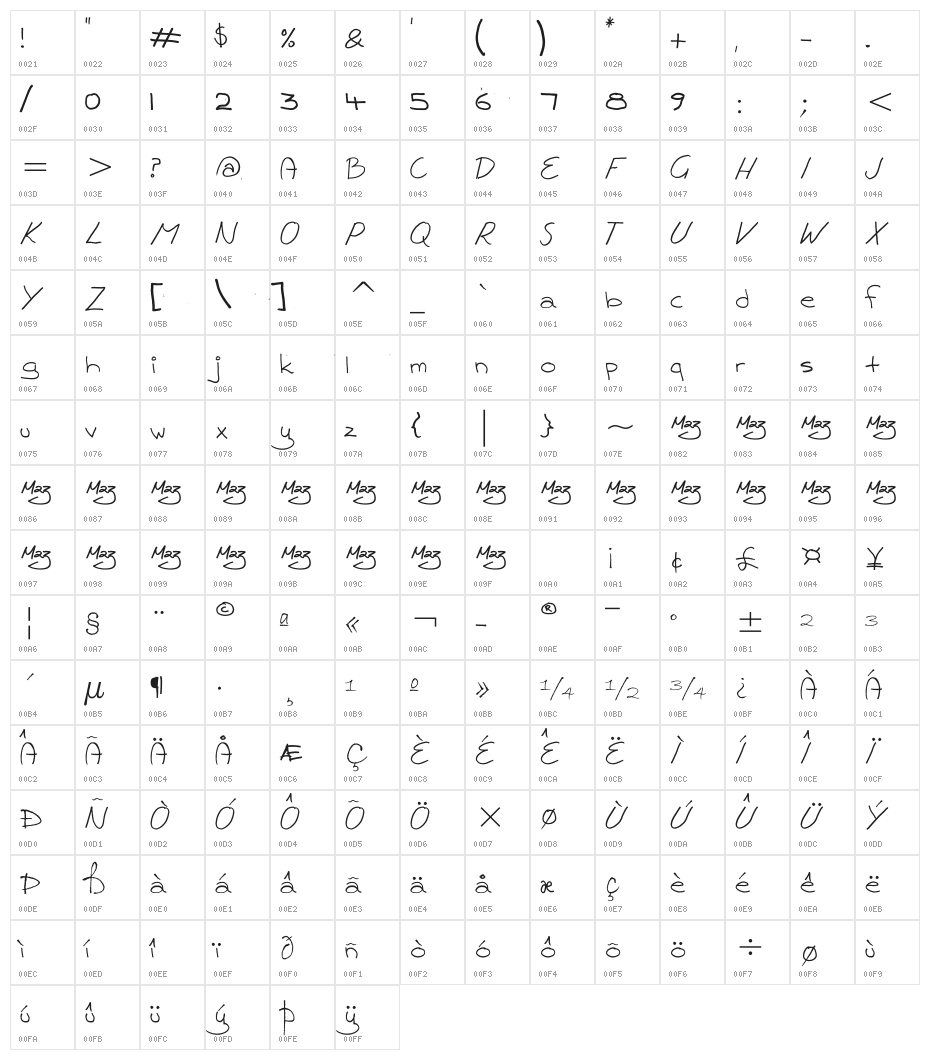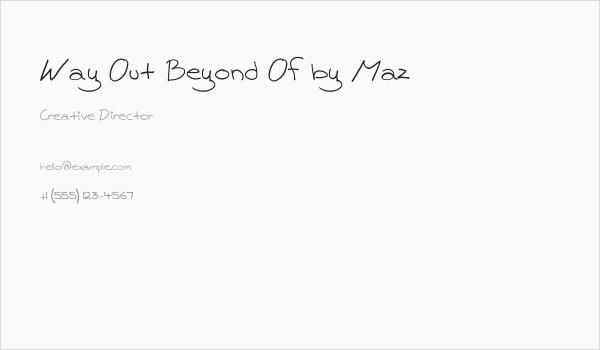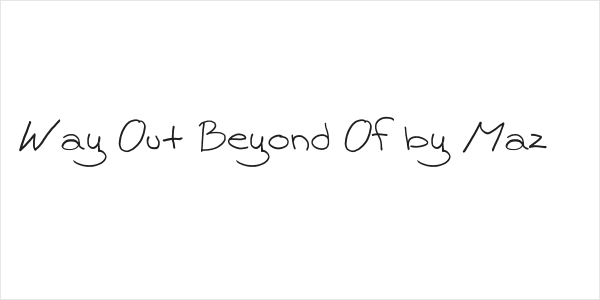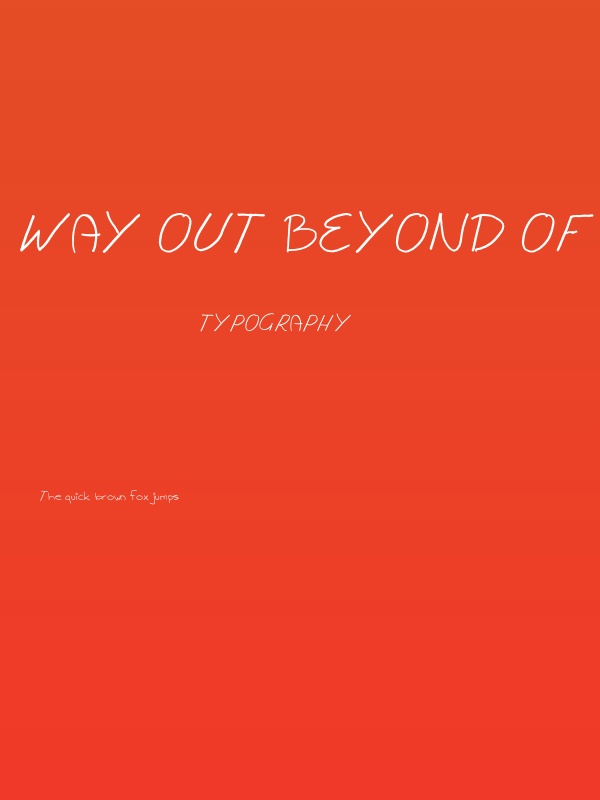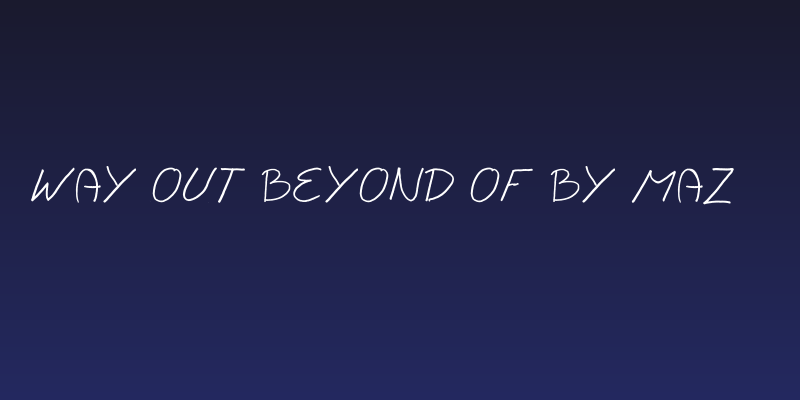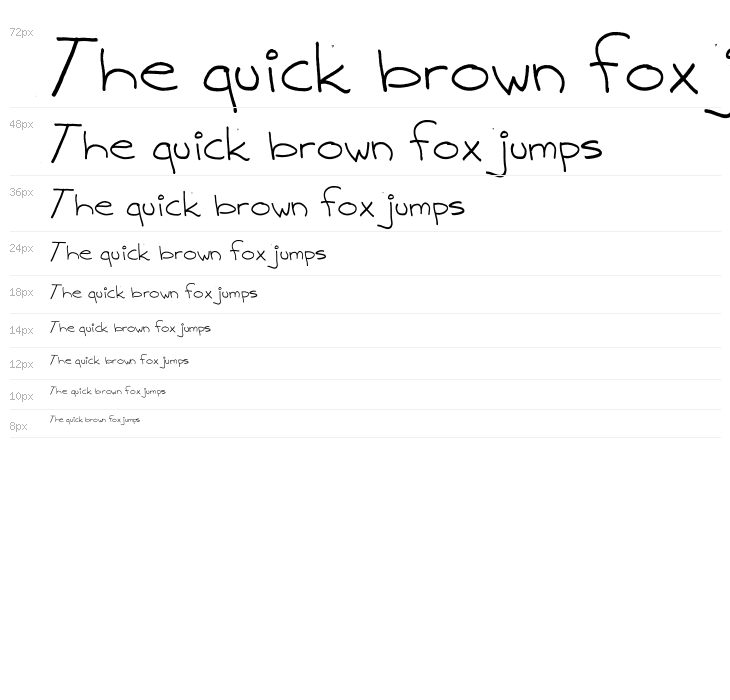
Way Out Beyond Of by Maz Font
Way Out Beyond Of by Maz Description
This font exhibits a playful and informal handwritten style, characterized by its uneven and slightly whimsical strokes. The uppercase letters are tall and narrow, with a casual slant that adds to the font's relaxed appearance. The lowercase letters maintain a consistent style, with rounded forms and a slightly irregular baseline that enhances the handwritten feel. The numerals are bold and clear, matching the overall aesthetic of the letters. Special characters are creatively designed, maintaining the font's unique personality. This font is ideal for projects that require a personal touch, such as greeting cards, invitations, or creative branding.
| Overall Style | Playful, Informal |
| Use Case | Headlines, Creative projects, Personal notes |
| Proposed Projects | Ideal for greeting cards, invitations, creative branding, and any project needing a personal touch. |